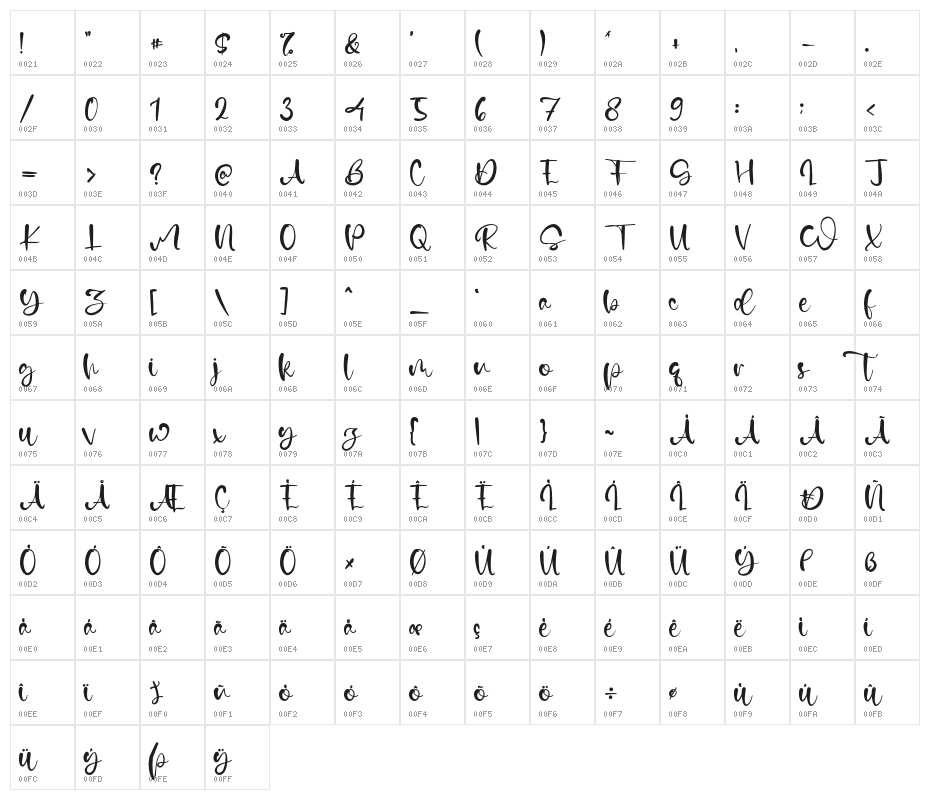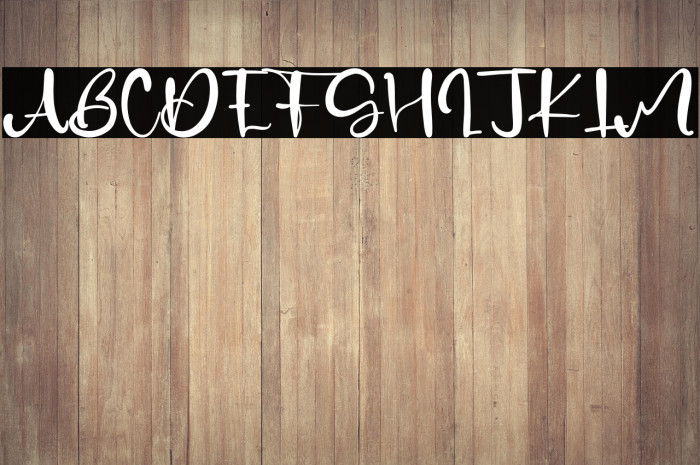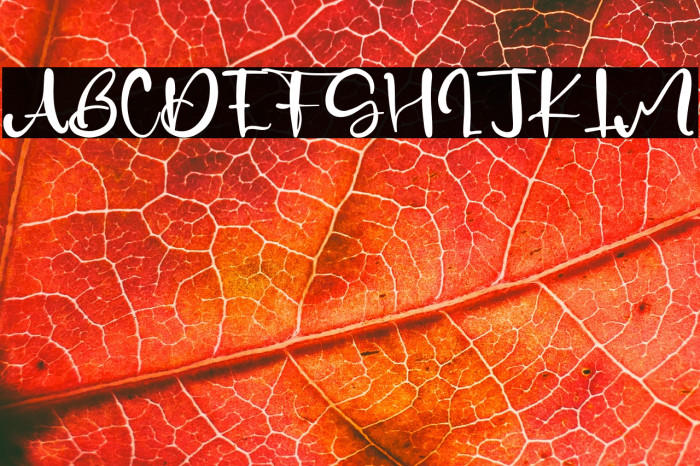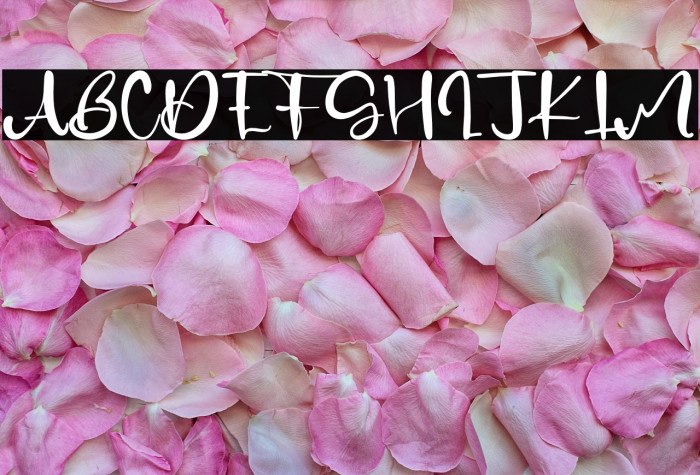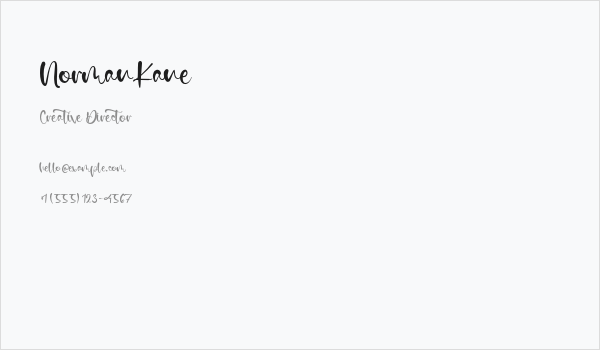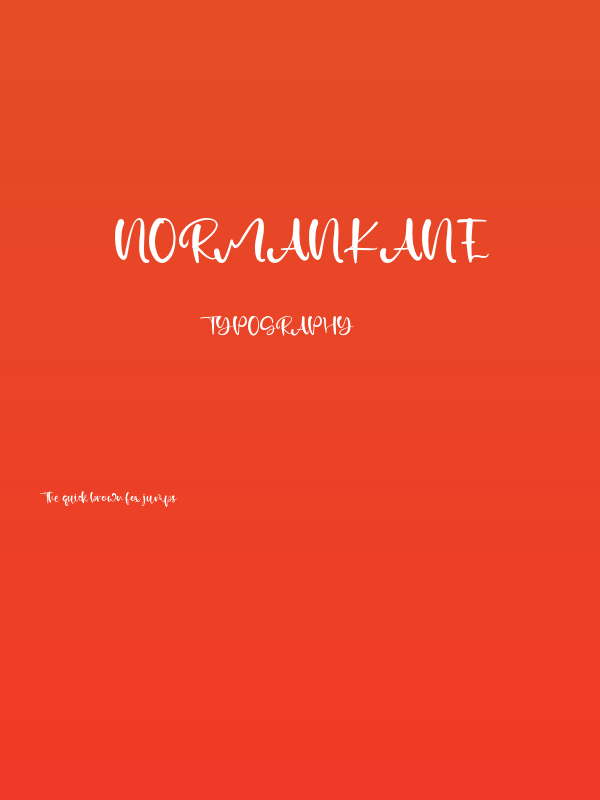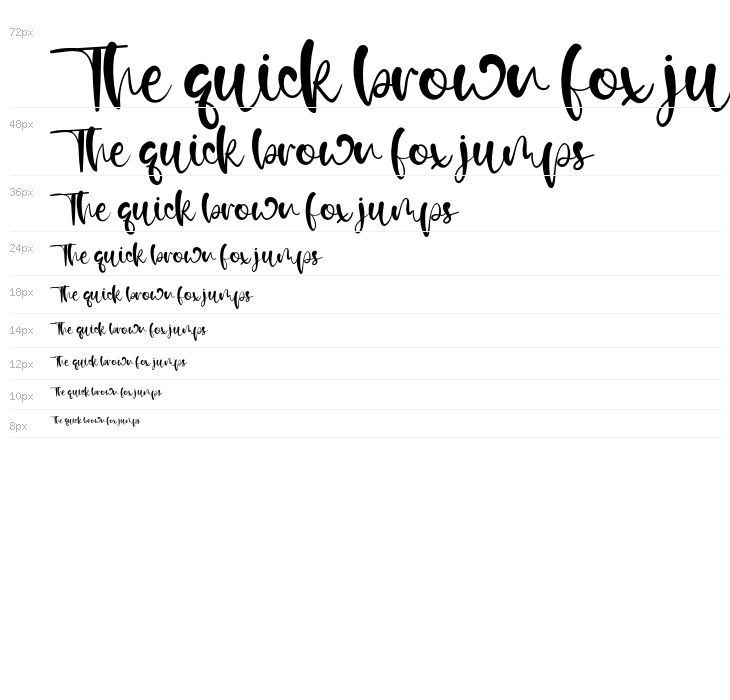
NormanKane Font
NormanKane Description
This font features a lively and expressive script style with a handwritten feel. The characters are fluid and dynamic, showcasing a playful yet elegant aesthetic. The uppercase letters are bold and slightly slanted, giving a sense of movement and energy. The lowercase letters maintain a consistent flow, with some characters extending below the baseline, adding to the font's charm. The numerals are well-integrated, matching the overall style with their curvaceous forms. Special characters are creatively designed, enhancing the font's versatility. This font's unique style makes it suitable for creative and artistic projects.
Use CaseLogos, Headlines, Artistic projects
Proposed ProjectsIdeal for invitations, greeting cards, branding, and artistic projects.